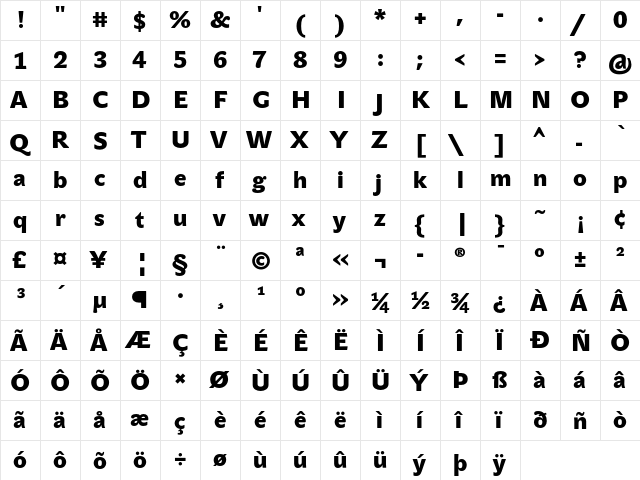
JohnSans Black Pro Regular
| Designer | Frantisek Storm |
Design Context for JohnSans Black Pro Typeface
JohnSans Black Pro is a composed and adaptable typeface that performs quietly and consistently across a wide range of design contexts.